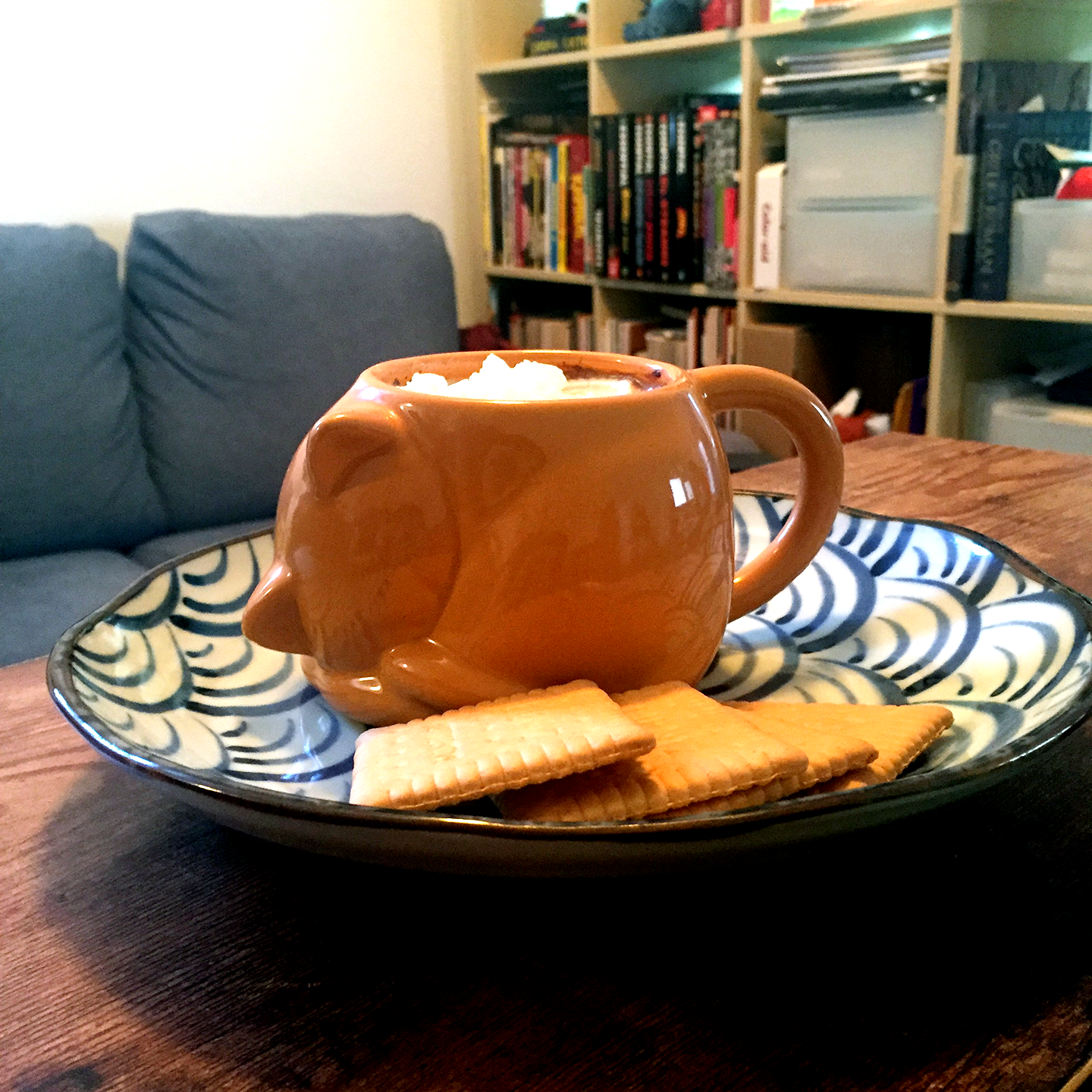
It has been about 20 months since the last interview in this series was published. Since then, many things have happened & a lot has changed. Returning to this format is incredibly comforting to me. The familiar structure, the visual glimpse into one woman’s life, the personal questions that get such honest replies.
Luisa is a person you want to both hear and read. You don’t want to miss a word, since they are all clear and make you think. Walking with her on the streets of Thessaloniki some years ago, I was lucky to find a friend so soon after meeting in person for the first time. The ease and sincerity of her thoughts are very much apparent in this interview. I urge you to find few quiet moments to read, drink something relaxing (hot chocolate? something stronger perhaps?) and let it sink in slowly, along with this interview.
The warmup
Write three sentences about you
– I grew up in Brazil, lived in the UK for almost a decade and am completing next week my first anniversary of living in New York.
– I want to be in too many places at once, I wish I had a teleporting device.
– I am at heart a generalist rather than a specialist, which I feel is somewhat at odds with my decision to study and work with type design.
What is your soundtrack while working?
I love listening to music while I design, it helps me focus, and if I am home I will often sing while I work. But if I am writing, reading or doing anything verbal, I find music distracting. I usually just put a huge collection of songs on shuffle — it’s easy and allows for serendipity (I love when a perfect unexpected song matches a moment or tells you what you need to hear — I am not religious, but if I were, I might build my religion along shuffle messages from the gods). However, I have several more specific or even “functional” playlists, and it depends on my mood: if I want to get energized during a particularly boring stretch of work on that sleepy moment of the mid-afternoon, I listen to the kind of skater punk rock I used to love when I was 16. It’s better than an espresso! If I want to chill and let the mind wander, perhaps some soundtracks by Ennio Morricone, Nino Rota, etc. If I am feeling sad or have the winter blues, there is nothing better than Jorge Ben.
Name three locations: a current location, a location you love, and a fantasy location
– Current: New York, New York.
– Love: Rome.
– Fantasy: 1950s Rio de Janeiro (or 1960s South of France. Or 1930s New York. I fantasize a lot about places I love in different moments in time).
Your favourite glyph to design and the most challenging one?
My favorites are the c and the z. I often get my first sense of the personality of a typeface with the c, which isn’t very helpful (it certainly isn’t part of my Reading-taught “adhesion”, or the often-used “hamburgefonstiv”, “handgloves”, etc.) but it’s where I usually get a good sense of the curve and the hand movement. The z is also great; I love the vitality of the diagonal movement, the bit of freedom it brings, and I feel like Zorro while I’m sketching it!
My most challenging in the basic Latin alphabet is the f (especially for Roman, italics can have a bit more leeway). I can never get it to look balanced on a first try and it’s usually the last character in the lowercase set that I “resolve”. Funnily enough, I remembered recently that when I was 6 years old I got in trouble because I could not write the cursive f! I remembered the teacher making me practice writing all the loops with my finger on a tray of sand. So I can say the f is a long-time nemesis!
What is something you did that you are proud of?
Within design, most of the things I am proud of are “invisible” and it’s like they never happened. They are mostly related to going beyond what was requested, usually in situations where it wasn’t expected, and I wasn’t credited for it — who gets credit for re-spacing and kerning a typeface within a large foundry? Or designing obscure characters for a fallback font protected by an NDA? Nevertheless, moments like these make me proud, where it would have been easier (and perhaps almost encouraged) to do a half-assed job, but I put in the effort and did my best work.
On a personal level, I am proud of a couple moments where I had the courage to make tough decisions and change the direction in which my life was going.
The visual
A photo of your favorite beverage, and something to eat with it
I don’t know that this is my favorite beverage overall, but I took this during a snowstorm, and it’s a favorite beverage for cold winter days. It’s a very indulgent hot chocolate, including whipped cream leftover from Christmas! To eat with it, some biscuits, of course (although I live in the US now and should probably start calling them cookies, I guess!).
What do you see from your window?
What I see from my window is a fire escape, the building’s backyard (where the trash cans are), and the back of other buildings with their own fire escapes. There is also a tree where lots of birds hang out, and because of that there is usually also my cat, wiggling her tail and obsessing over the birds. On this particular day, there was also a lot of snow (hence my choice of beverage!).
A pile of books
It took me a while to decide on a criteria for that one… I thought of picking some lifelong favorites, but I don’t have them all with me (many books, especially paperbacks, were left behind and given to friends and used bookstores before we moved from the UK to the US). While I generally try to take good care of my design books, I’m pretty unattached to fiction paperback books as objects (sorry for all the purists out there!). Once I’ve read a book I like, I am very happy to give it away so other people can read it, and I also love reading books that belonged to friends and show the signs of wear and tear (like sentences underlined with pencils, marks on the cover that show it’s been carried around inside purses, and once I read a book that used to belong to a friend which had evidently been dropped inside a bathtub at some point. It was a mess and I loved it. So, yes, many of my favorite books have been passed along or been left behind).
On a (very) personal note: